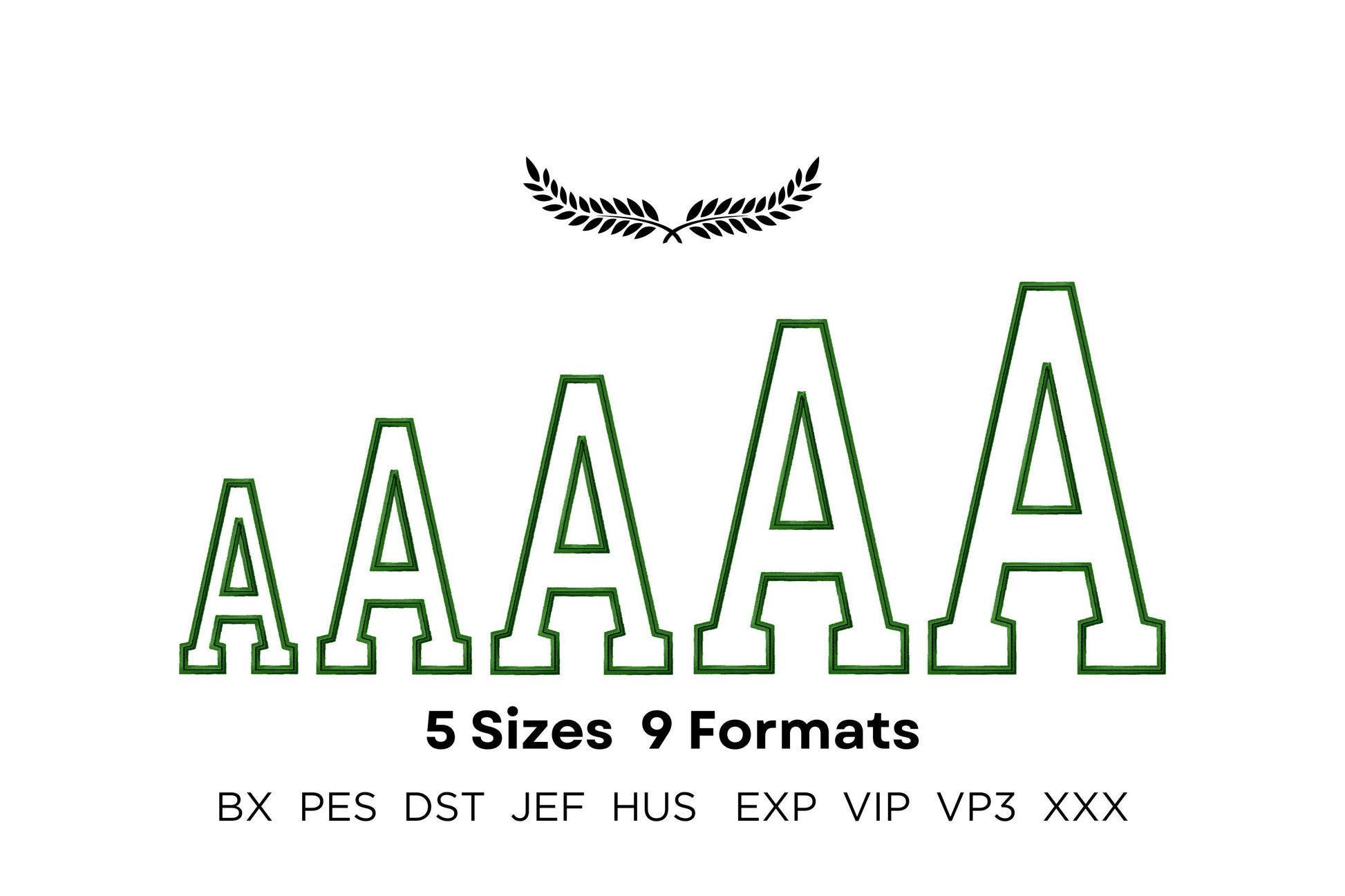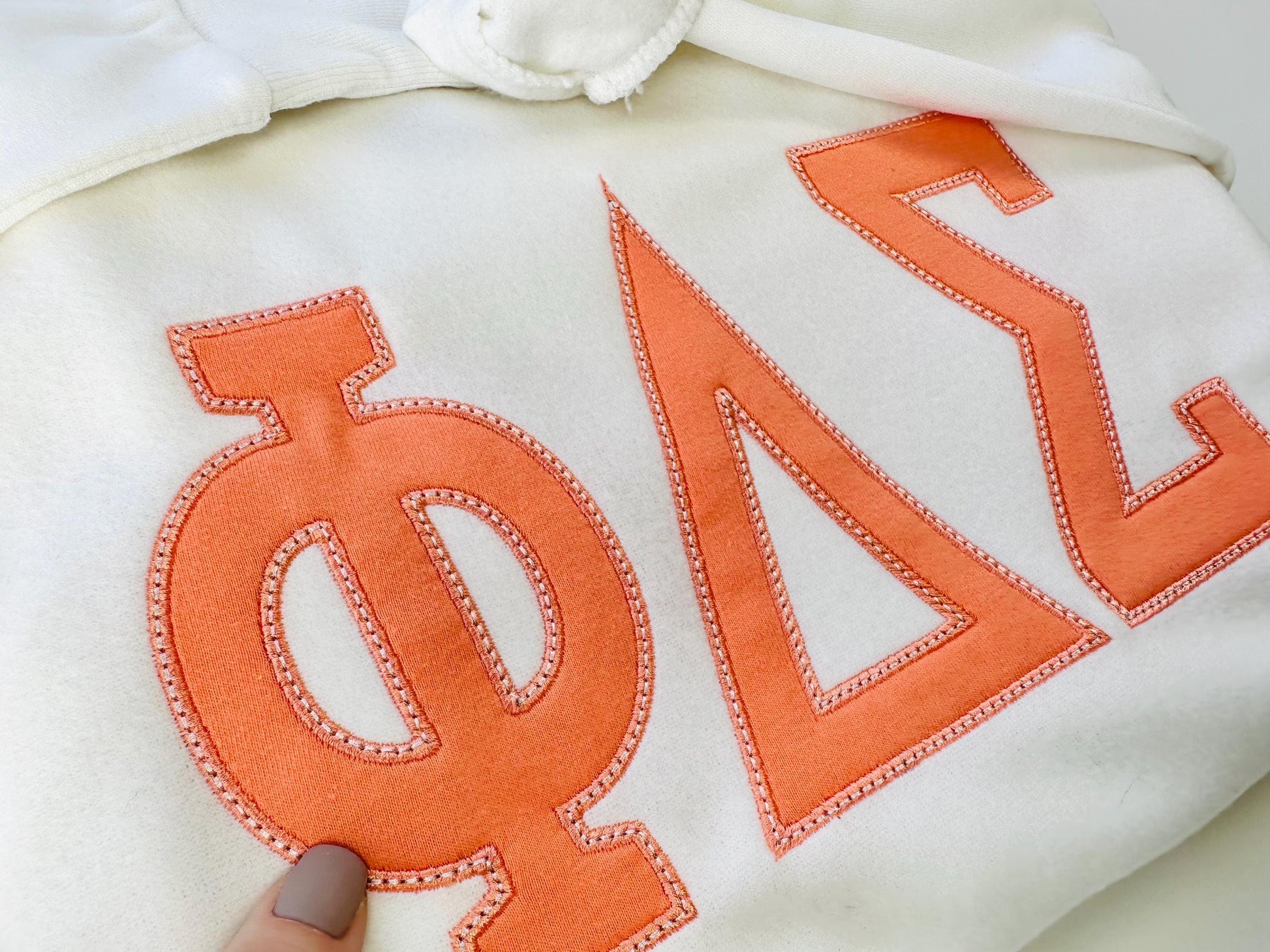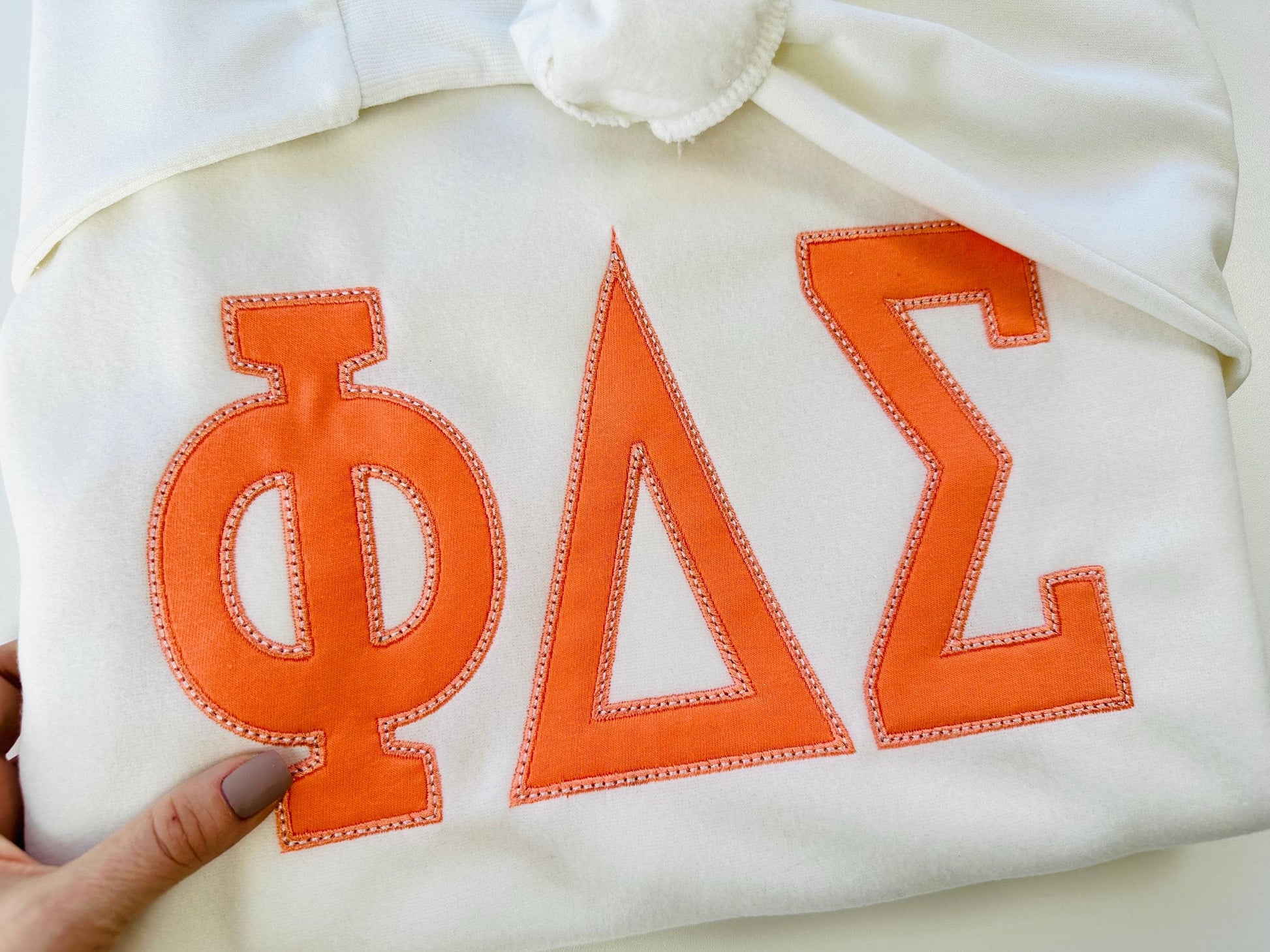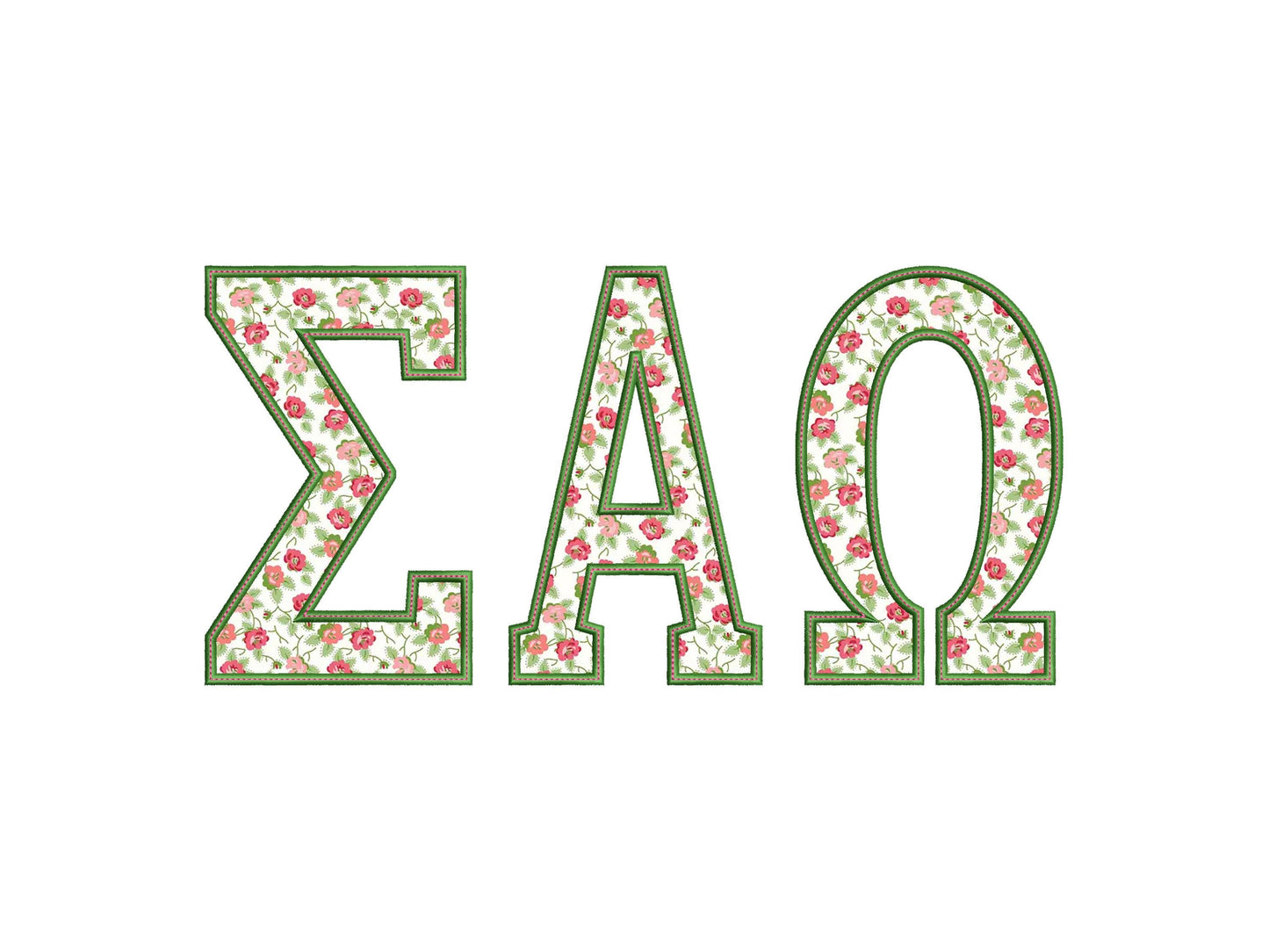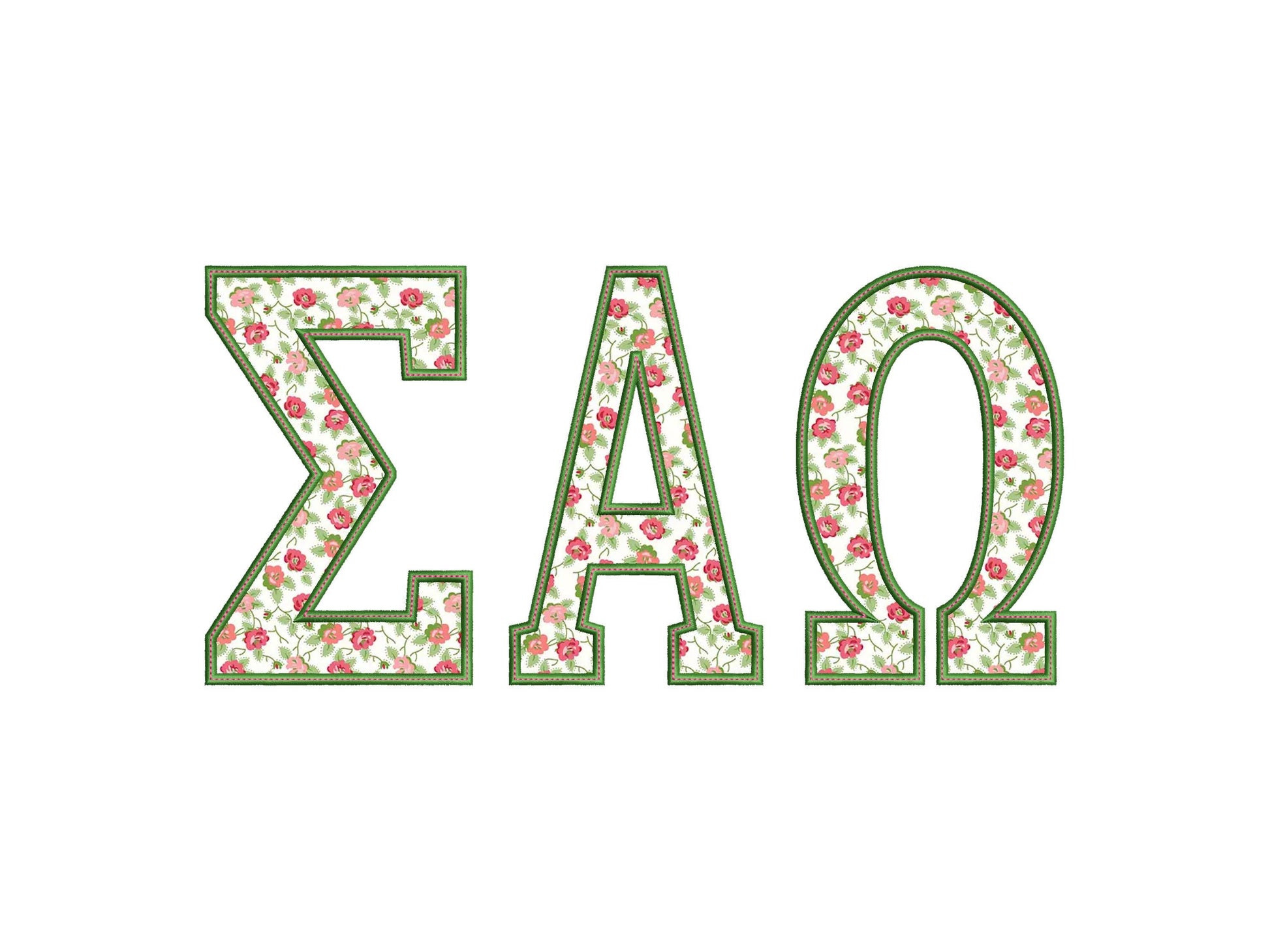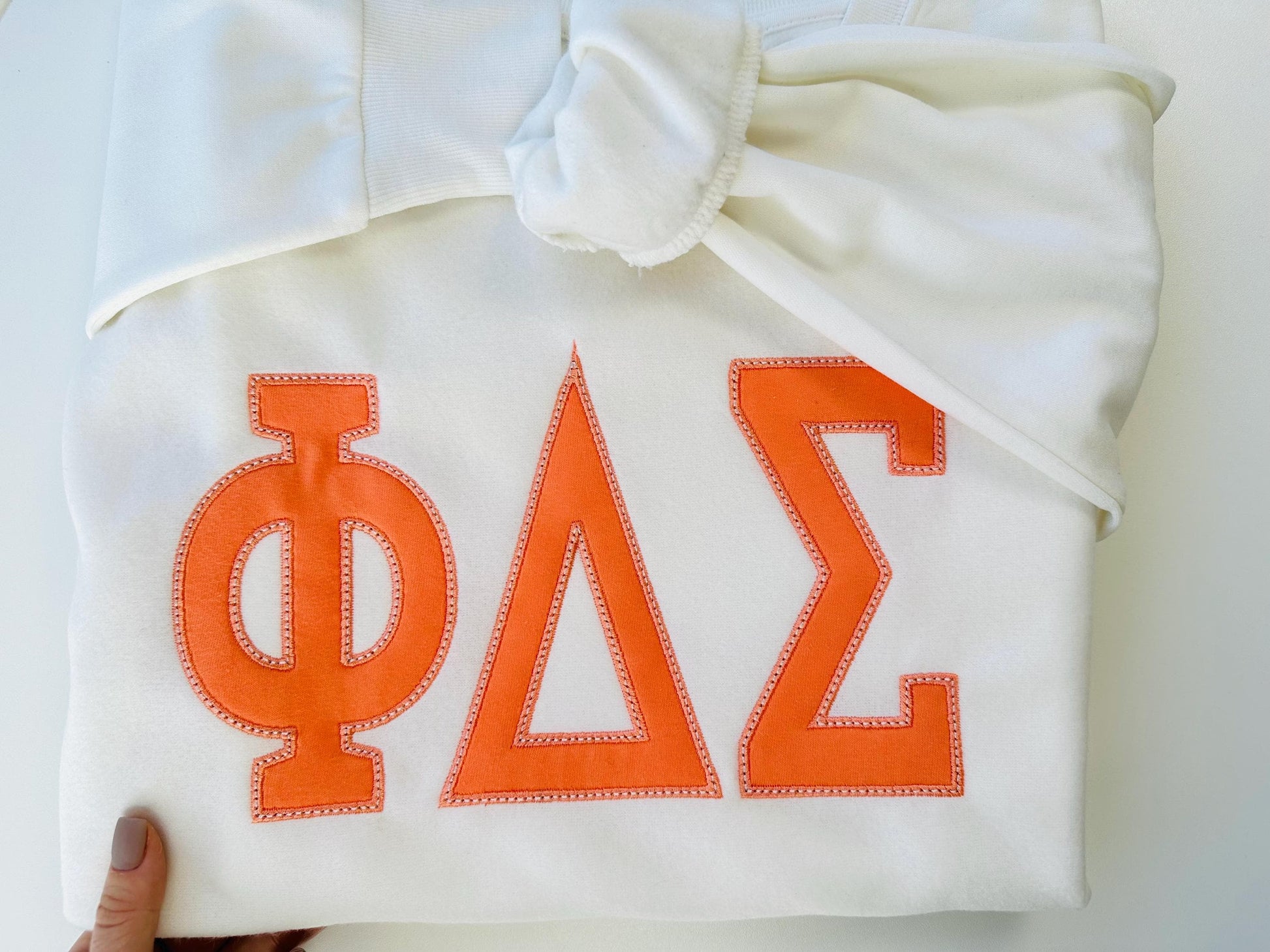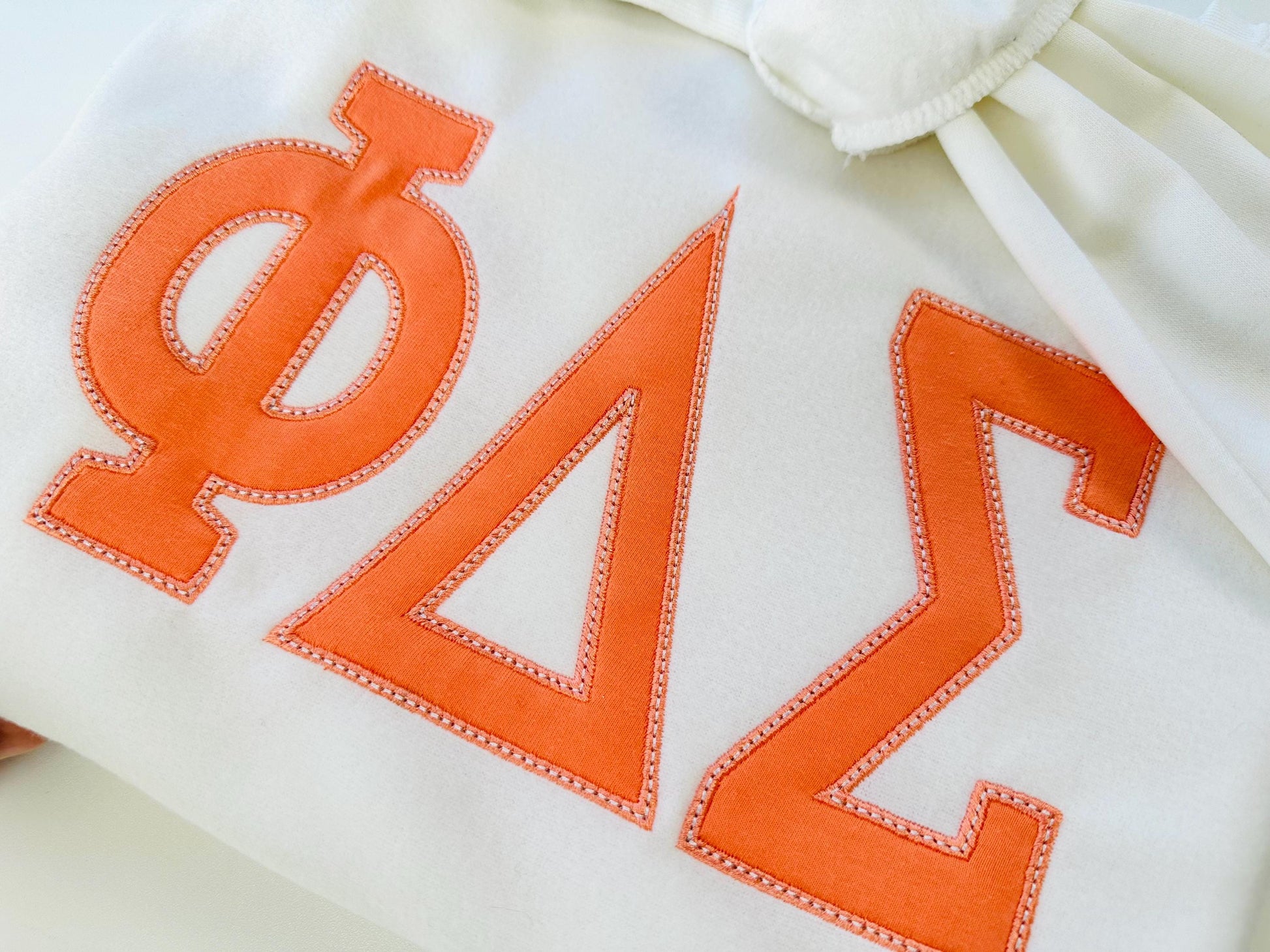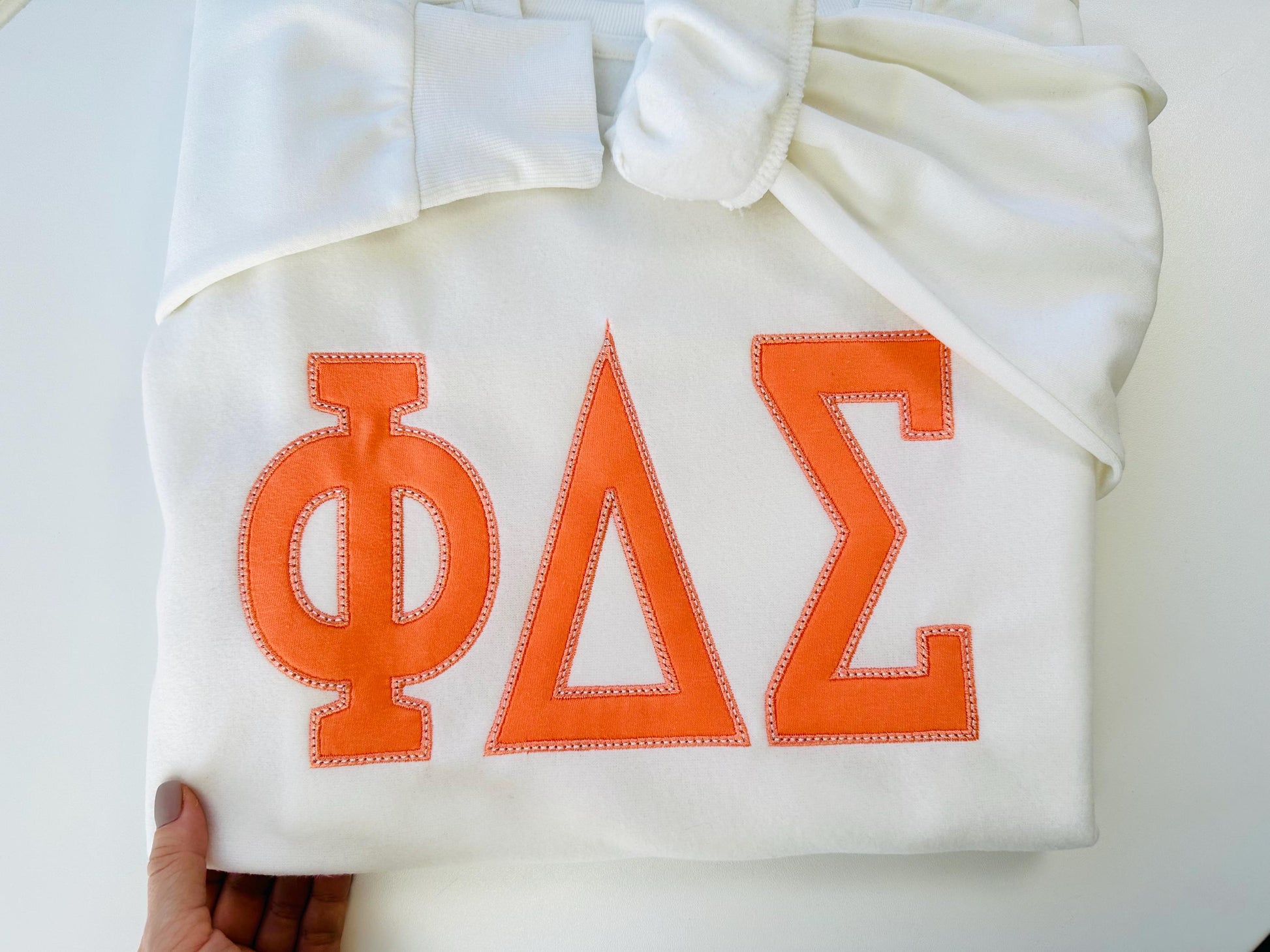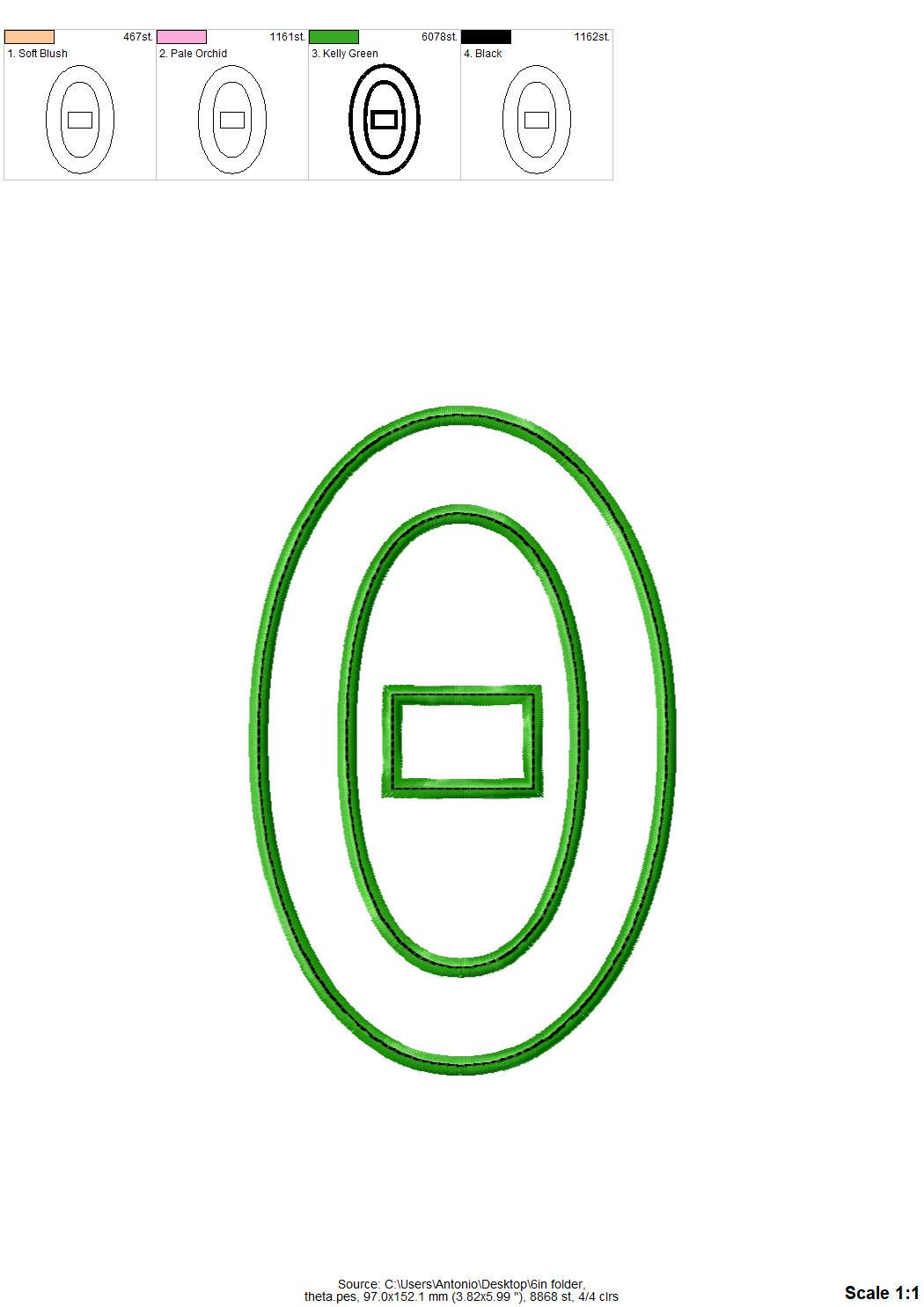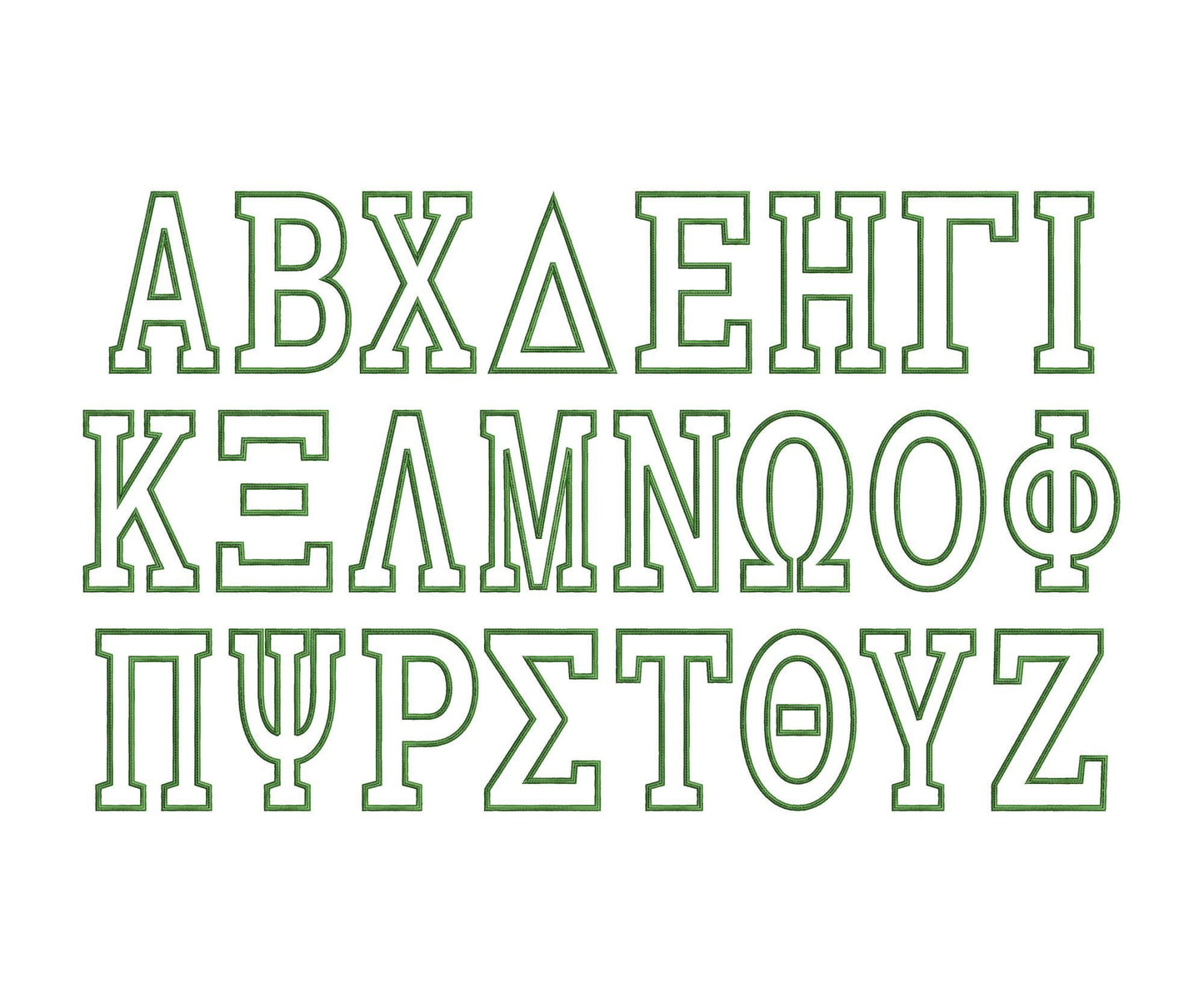
Or click to open the linkBig Greek letters as applique with a satin outline. Bold for sorority and fraternity sweatshirts, jackets and blankets.
All 24 Greek letters in five sizes: 4, 5, 6, 7 and 8 inches. Satin stitch outline with an optional neat stitch on top.